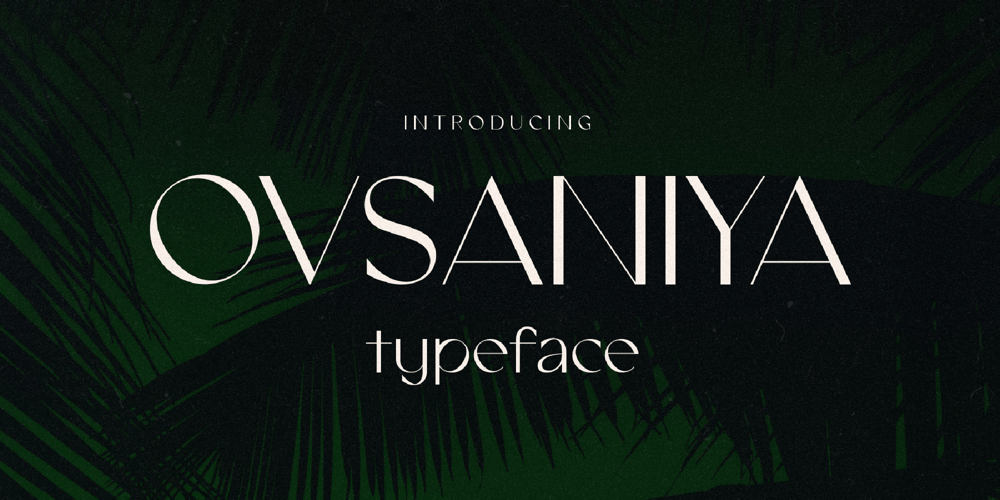
Ovsaniya
Ovsaniya font
Ovsaniya Font Family was designed by Igor Ovsyannykov and published by Hipfonts. Ovsaniya contains 1 styles and family package options. Ovsaniya is a timeless sans serif display font perfect branding, advertising, packaging, headlines, wedding invitations, and more. If you’re looking for a typeface that oozes class, then Ovsaniya is for you.